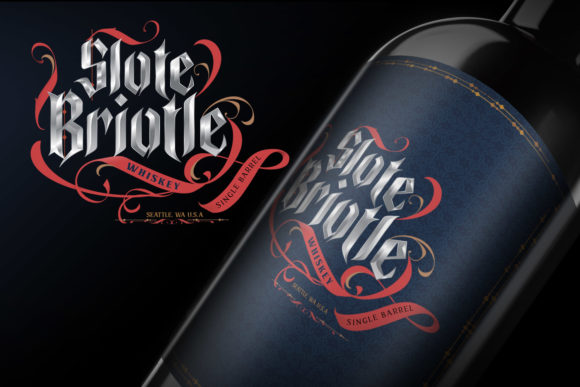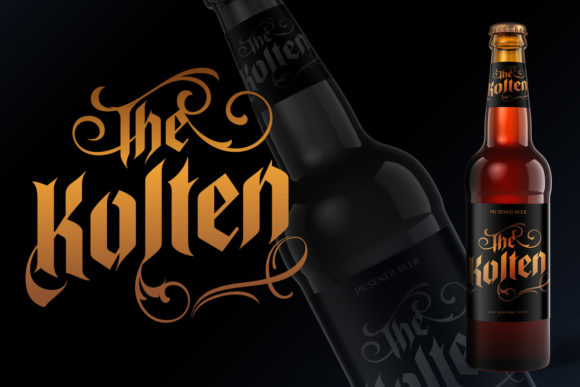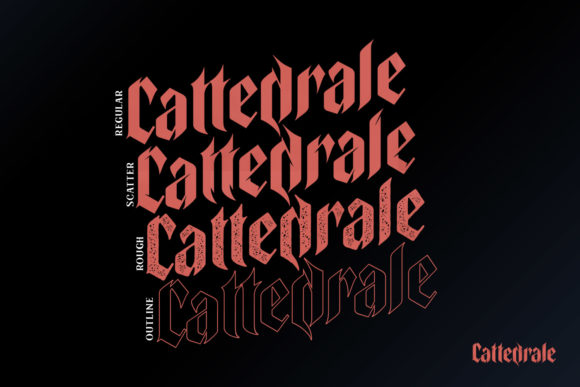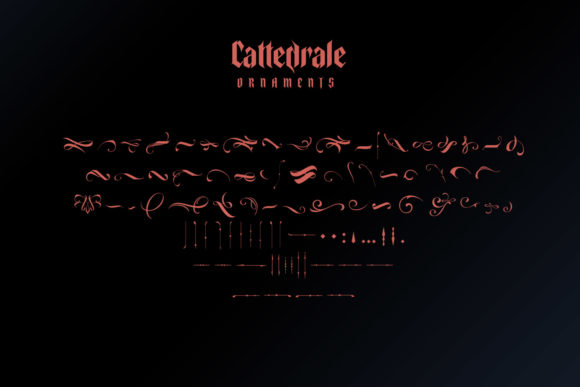
Cattedrale Font: Unlocking the Magic of Gothic Blackletter Typography
Imagine you’re sitting in a dimly lit room, surrounded by ancient tomes and dusty manuscripts. You’re on the hunt for the perfect font to bring your latest design project to life, and as you scroll through your font library, one name catches your eye: Cattedrale. This outstanding gothic blackletter font is more than just a pretty face – it’s a powerful tool for designers looking to add a touch of elegance and sophistication to their work.
Designed to evoke the grandeur of medieval architecture, Cattedrale Font is a masterclass in typographic design. Its bold, intricate lines and ornate flourishes make it the perfect choice for creating eye-catching designs that demand attention. Whether you’re working on a logo, a poster, or a brochure, Cattedrale Font is sure to elevate your work to new heights.
- Font Family: Cattedrale, a serif font with a vintage and elegant feel
- Size: The font family includes various weights and styles, from Light to ExtraBold
- Resolution: Designed to work well at high resolutions, making it suitable for both print and digital media
- Unique Characteristics: Cattedrale features intricate details, ornaments, and flourishes, making it ideal for formal and decorative typography
Cattedrale Font Review
Overall, I think Cattedrale Font is a solid choice for any project that needs a classic, elegant feel. ✨ The font’s bold lines and ornate details make it perfect for titles, headings, and other display text.
Here are some of the things I like about Cattedrale Font:
- ✨ Elegant and sophisticated look that’s perfect for formal projects
- ✨ Well-suited for titles, headings, and other display text
- ✨ Compatible with a wide range of font sizes and styles
However, I do have a few reservations about Cattedrale Font:
- ⚠️ Some users may find the font’s ornate details too busy or overwhelming
- ⚠️ May not be suitable for body text due to its complex design
- ⚠️ Limited support for some languages and character sets
In conclusion, I think Cattedrale Font is a great choice for projects that need a touch of elegance and sophistication. Just be aware of its limitations and use it judiciously. Overall, I’d give it 4 out of 5 stars.
Tips for Getting the Most Out of Cattedrale Font
Use the Cattedrale font to add a touch of elegance and sophistication to your designs. Pair it with clean lines and minimalist backgrounds for a stunning visual effect. Experiment with different font sizes and styles to create a unique look.
The Cattedrale font is ideal for:
- Business cards and corporate materials
- Book covers and literary designs
- Special occasion announcements and posters